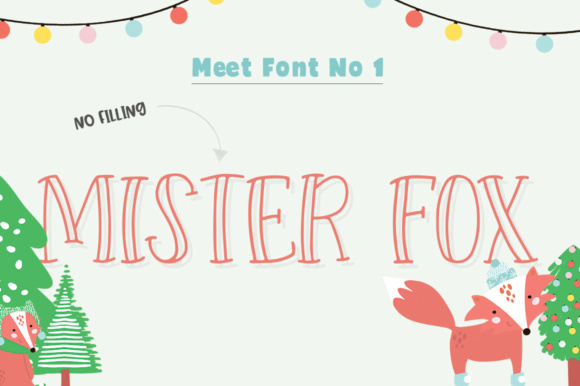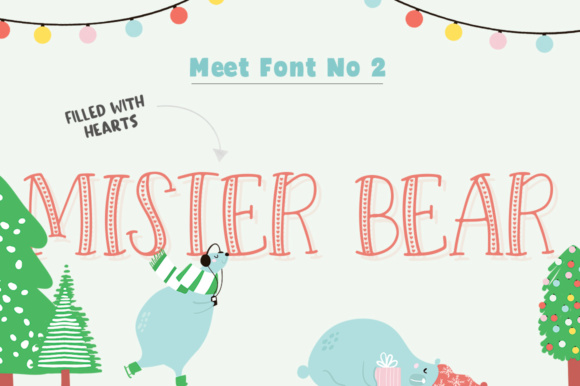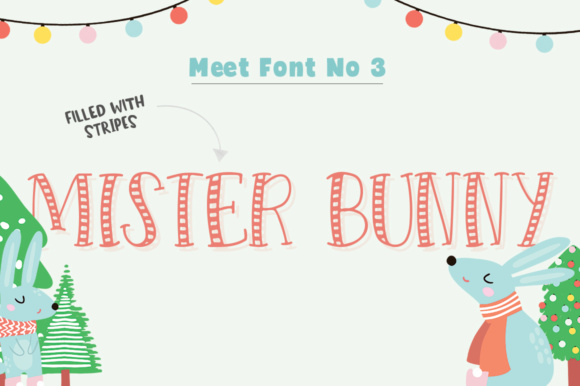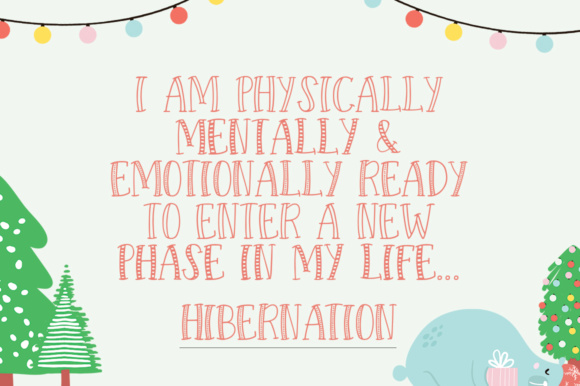
Introduction to Forest Creatures Trio Font
Forest friends is a fabulous new font trio from Salt and Pepper Designs.
Featuring Mister Bunny, Mister Fox and Mister Bear three best friends who love nothing more than working together to make your designs look desirable.